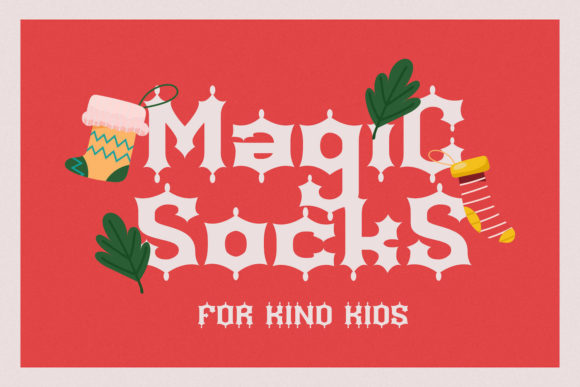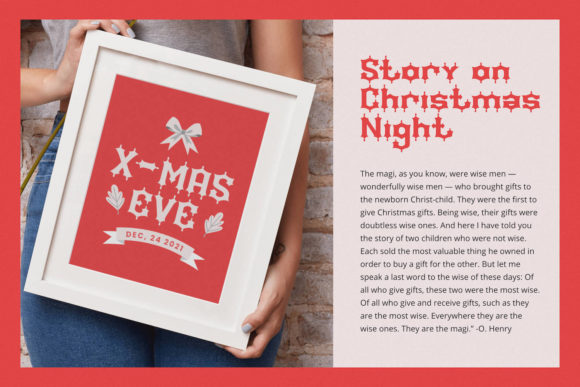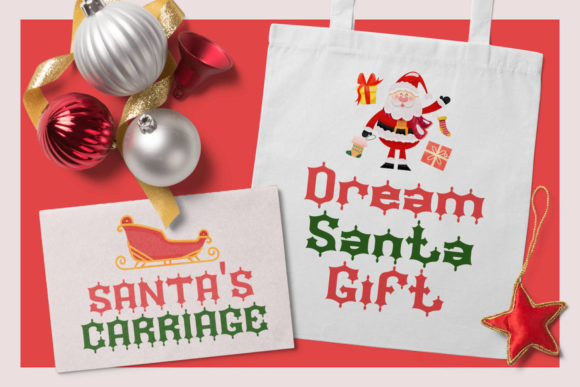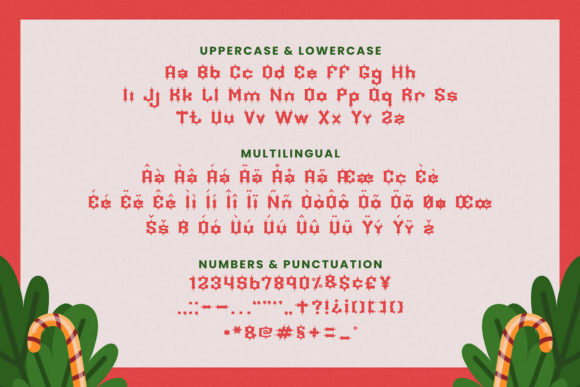
Candied Font: The Sweetest Addition to Your Design Collection
Are you tired of using the same old fonts in your designs? Look no further than Candied Font, a cool and interesting display font that’s sure to add a joyful touch to your creative projects. With its unique and playful style, Candied Font is the perfect way to make your designs stand out from the crowd.
What is Candied Font?
Candied Font is a display font designed to add a touch of whimsy and fun to your designs. Its sweet and playful style makes it perfect for a variety of projects, from party invitations and children’s book titles to branding and advertising materials. With its bold and eye-catching letters, Candied Font is sure to grab attention and leave a lasting impression.
Why Use Candied Font?
So why choose Candied Font for your design projects? Here are just a few reasons why this font is a great addition to your collection:
- Unique Style: Candied Font has a one-of-a-kind style that’s sure to set your designs apart from the rest. Its playful and whimsical letters are unlike anything you’ve seen before, making it the perfect choice for designers who want to add a little something extra to their work.
- Versatility: Candied Font is versatile and can be used in a variety of design projects, from digital graphics to print materials. Whether you’re creating a social media graphic, a flyer, or a business card, Candied Font is a great choice.
- High-Quality: Candied Font is a high-quality font designed to look great in any size or resolution. Whether you’re creating a large billboard or a small social media graphic, Candied Font will look amazing.
How to Use Candied Font
Using Candied Font in your designs is easy. Here are a few tips to get you started:
- Pair it with Other Fonts: Candied Font pairs well with a variety of other fonts, from simple sans-serif fonts to more decorative scripts. Experiment with different font combinations to find the perfect look for your design.
- Use it for Headlines: Candied Font is perfect for headlines and titles, where its bold and playful style can really shine. Use it to grab attention and draw the reader in.
- Add it to Your Branding: If you’re looking for a way to add a little personality to your branding, Candied Font is a great choice. Use it in your logo, on your website, or in your advertising materials to add a touch of whimsy and fun.
Design Ideas with Candied Font
Candied Font is a versatile font that can be used in a variety of design projects. Here are a few ideas to get you started:
- Party Invitations: Candied Font is perfect for party invitations, where its playful and whimsical style can add a touch of fun and excitement.
- Children’s Book Titles: Candied Font is a great choice for children’s book titles, where its bold and eye-catching letters can help grab the reader’s attention.
- Branding and Advertising: Candied Font can be used in branding and advertising materials, such as logos, flyers, and billboards, to add a touch of personality and whimsy.
- Social Media Graphics: Candied Font is perfect for social media graphics, where its bold and playful style can help your posts stand out from the crowd.
| Author | Runsell Graphic |
Candied Font is a cool and interesting display font that’s sure to add a joyful touch to your designs. With its unique and playful style, Candied Font is the perfect way to make your designs stand out from the crowd. Whether you’re a designer, crafter, or DIY enthusiast, Candied Font is a great addition to your collection. So why wait? Download Candied Font today and start adding a touch of sweetness to your designs!